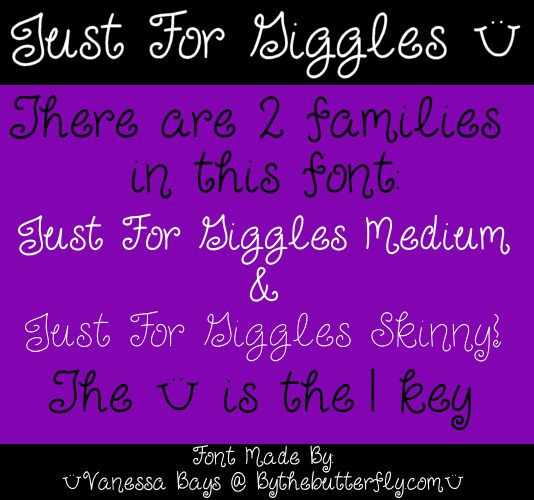
Just For Giggles by Vanessa Bays of ByTheButterfly.com is a free curly display font with tall, looping letters and a playful hand-drawn swing. Its slim strokes change width gently, and rounded joins with oversized curls give the alphabet a lively, offbeat silhouette. Several letters dip or rise dramatically, so the line seems to bounce rather than sit still across each word.
That mix connects children's party invitations with cheerful cafe packaging because both benefit from lettering that feels drawn for the occasion, and the curling details also suit craft branding and editorial illustration. Its clearest audience is children, families, and cheerful craft brands.